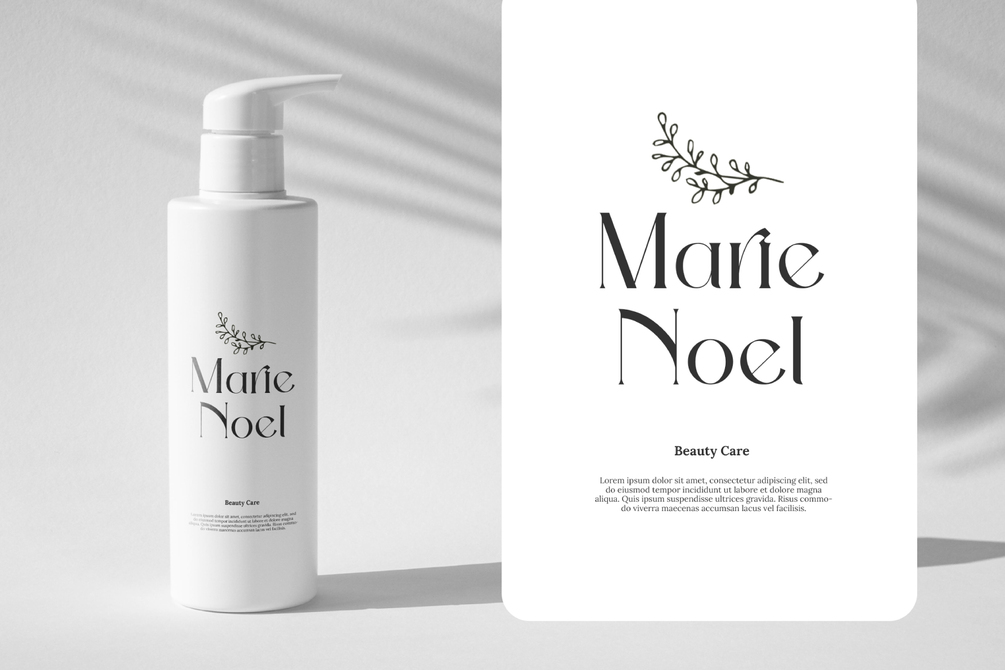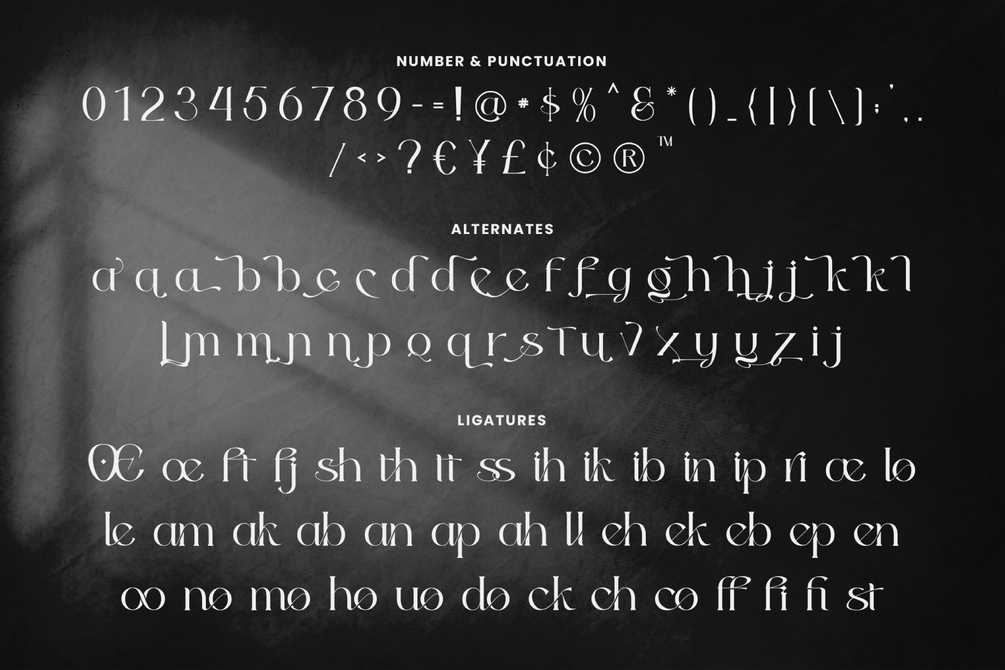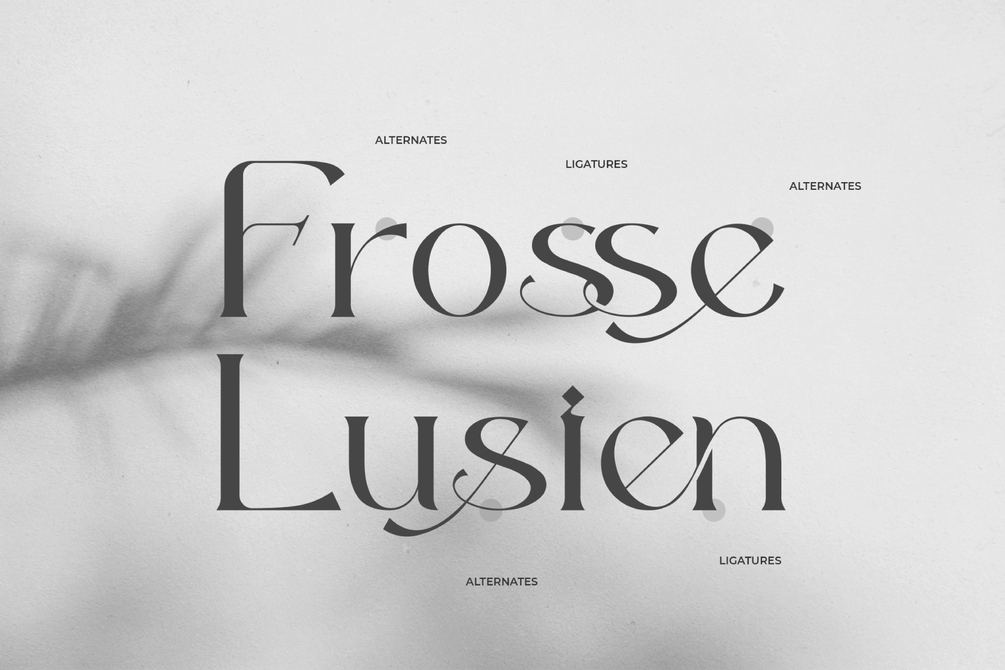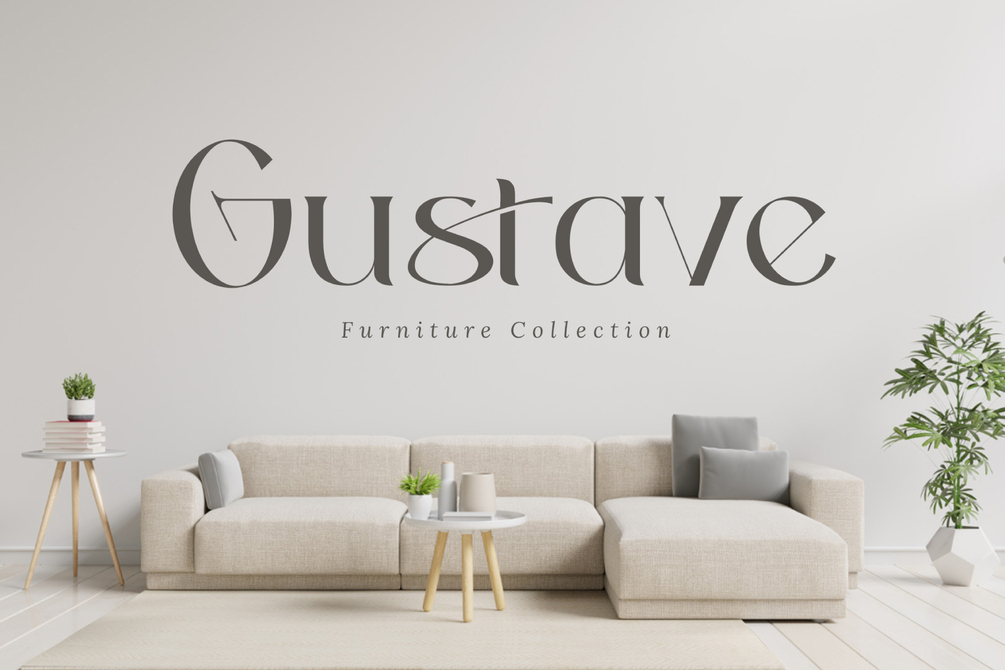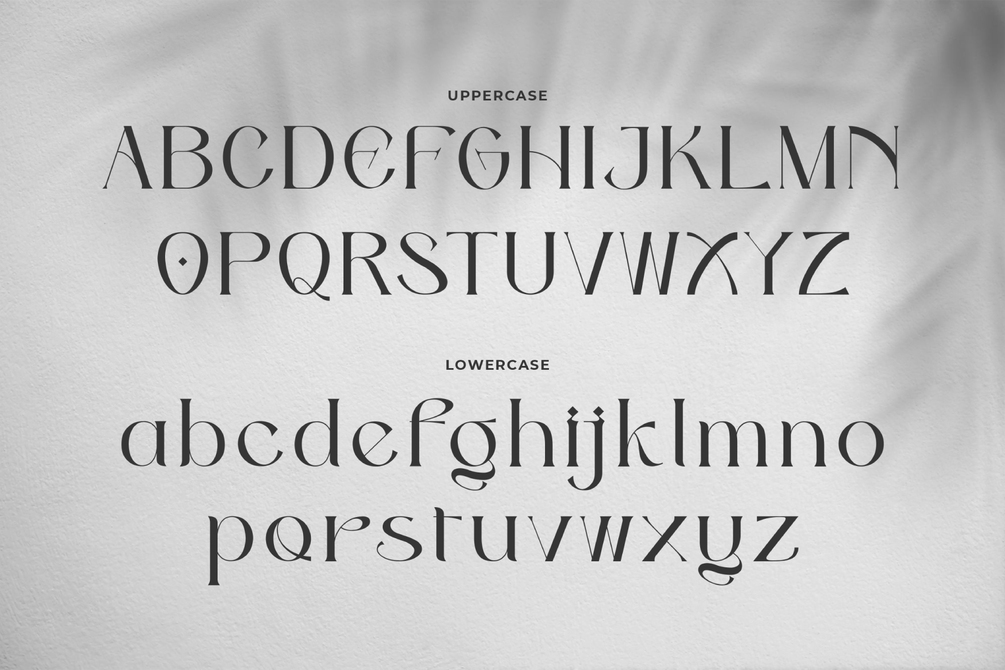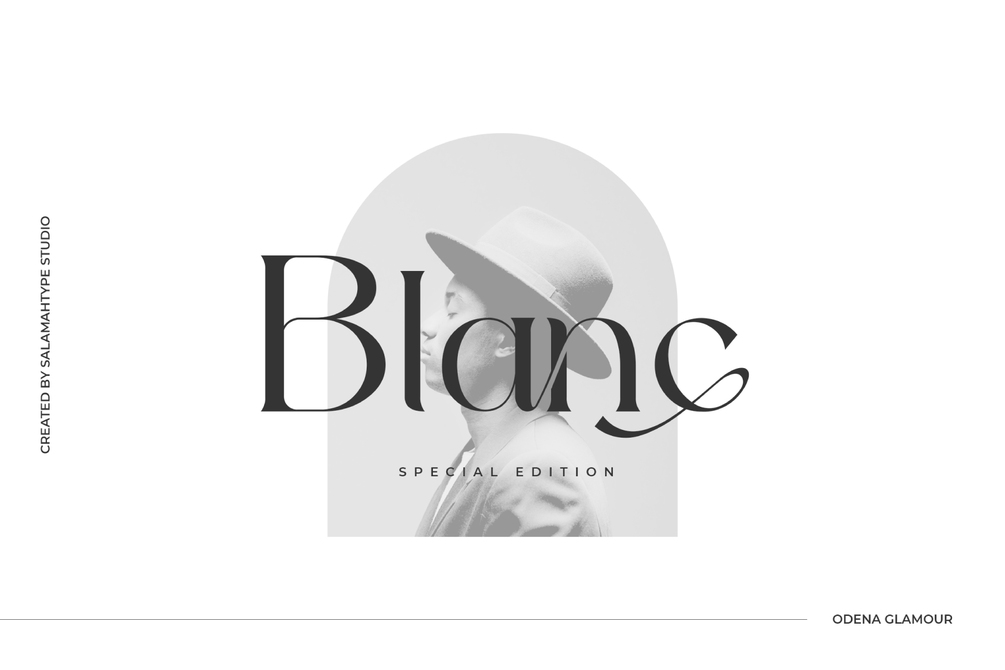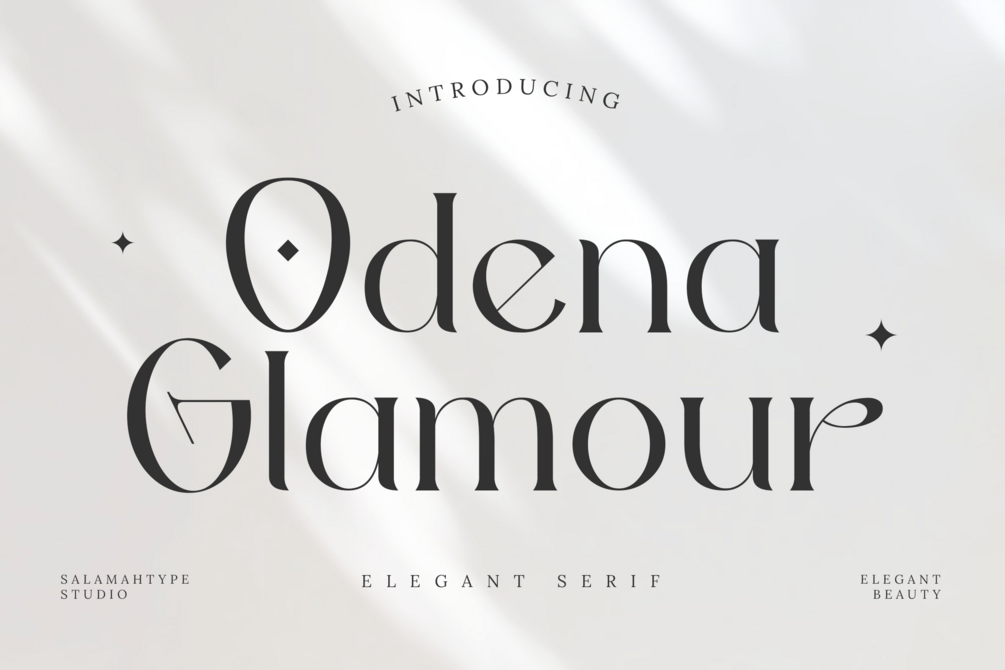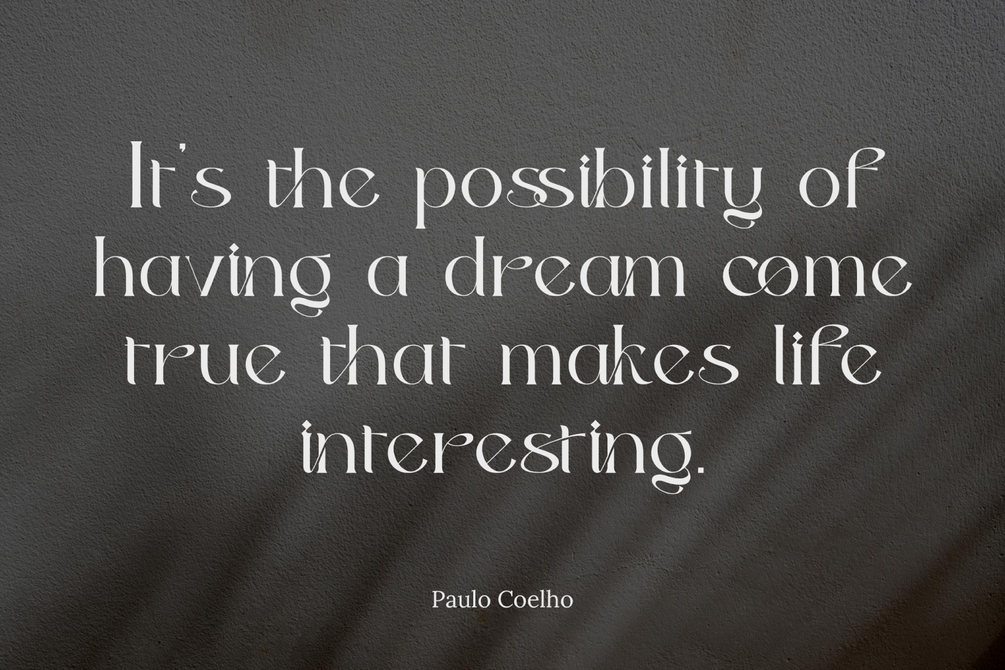
Odena Glamour - Elegant Font
Odena Glamour is a modern serif font with elegant style this font is perfect for branding projects, logos, social media posts, advertisements, product packaging, wedding invitations, product designs, label, photography, watermark, stationery and so much more.
• Uppercase and lowercase
• Punctuation and symbols
• Multilingual support
• Ligatures
• Alternates